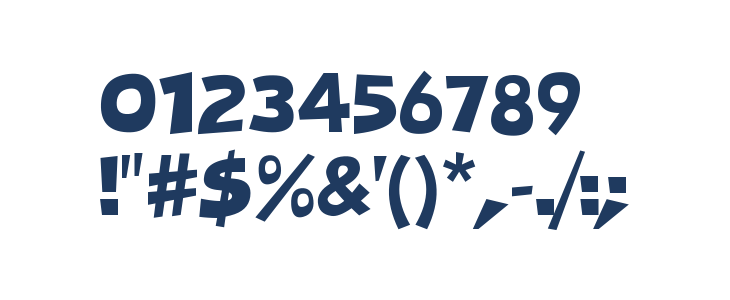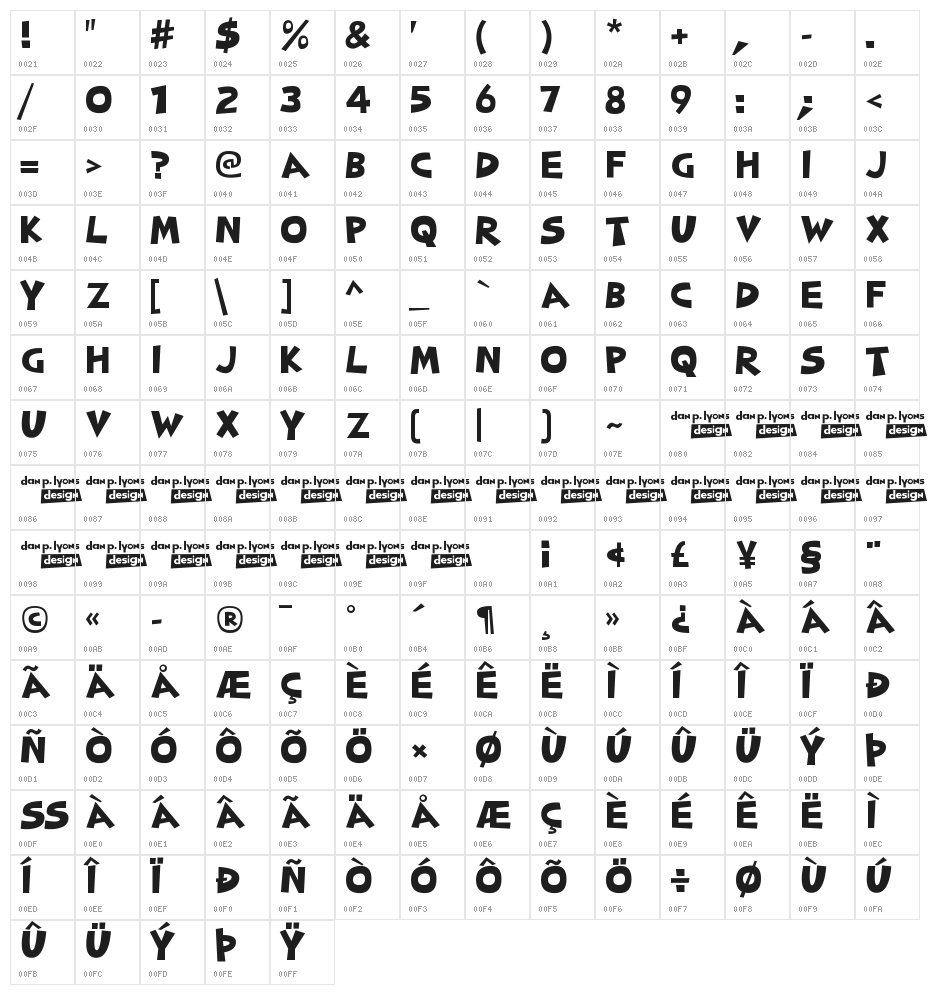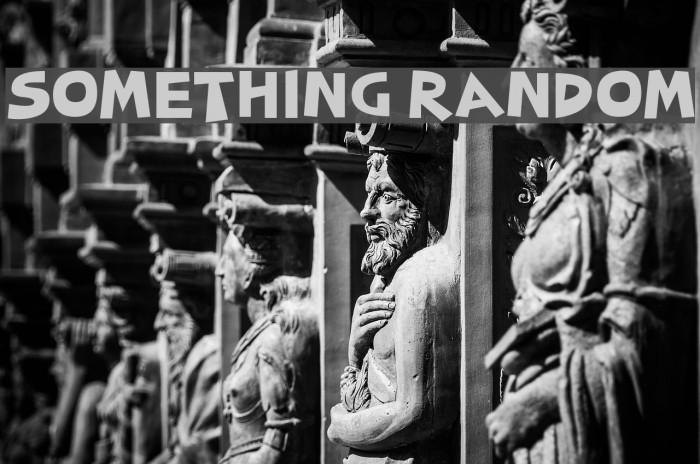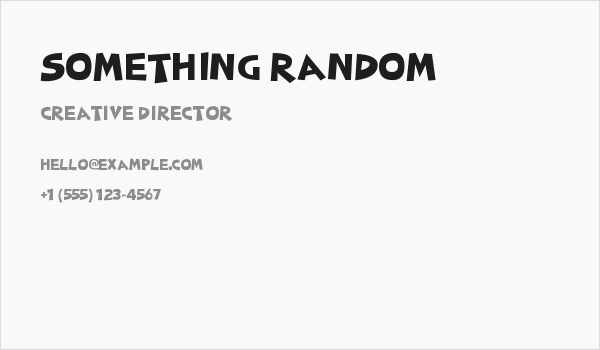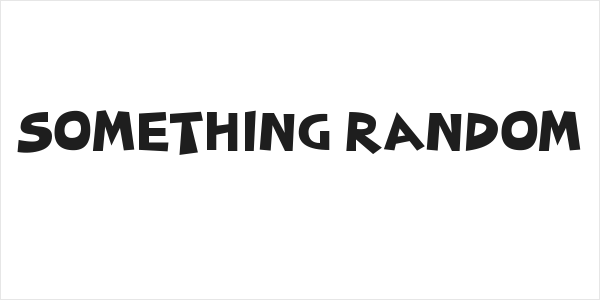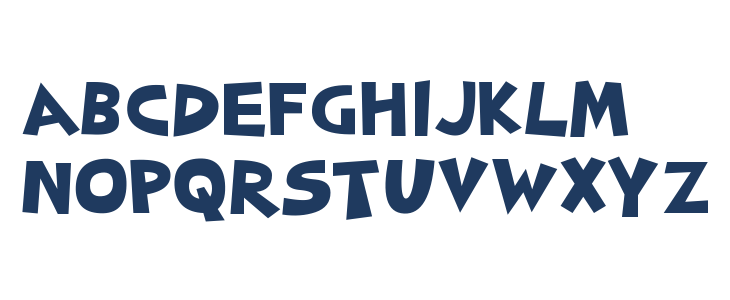
Something Random Font
Something Random Description
This font features a bold and playful design with a distinctively quirky and energetic character. The letters are slightly tilted and irregular, giving them a dynamic and informal appearance. The strokes are thick and consistent, contributing to a strong visual impact. The overall style is reminiscent of comic or cartoon lettering, making it ideal for projects that require a fun and engaging aesthetic. The numbers and special characters maintain the same lively style, ensuring consistency across all text elements.
| Overall Style | Playful, Comic |
| Proposed Projects | Ideal for children's books, comic strips, playful branding, and event posters. |